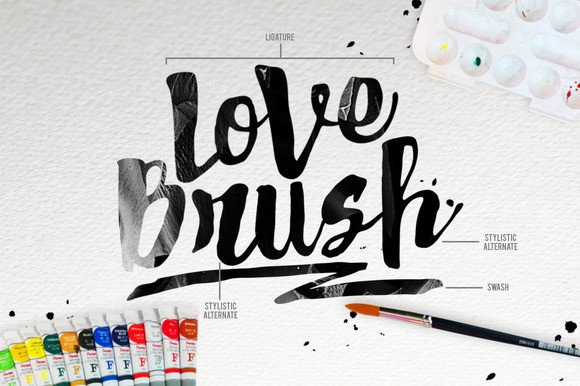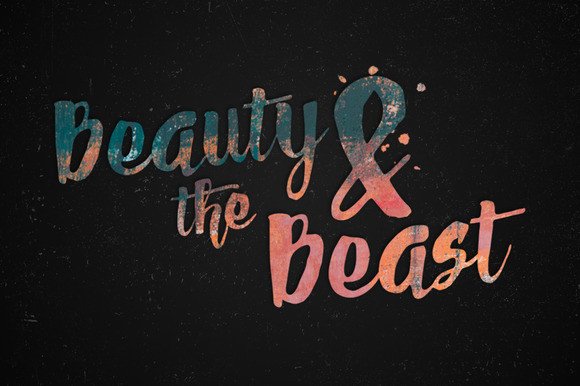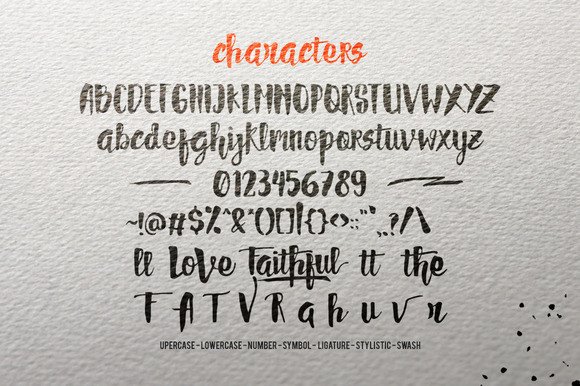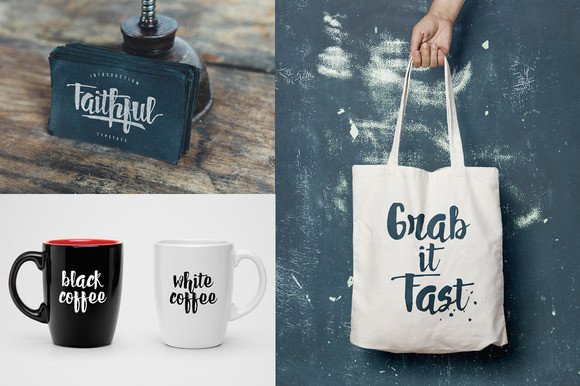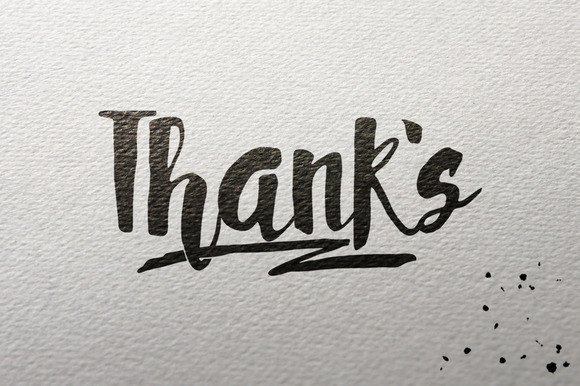
Introducing Faithful Font: The Reliable Brush Script for Your Creative Projects
Are you tired of using the same old fonts for your designs and projects? Look no further than Faithful Font, a stunning brush script font that is both adaptable and persuasive. With its unique charm and versatility, Faithful Font is the perfect addition to your typography collection.
What is Faithful Font?
Faithful Font is a brush script font that you can always rely on. As its name suggests, this gorgeous font is designed to be faithful to your creative vision, delivering high-quality text that’s both elegant and eye-catching. Whether you’re working on a logo, a poster, or a digital project, Faithful Font is the perfect choice.
Key Features of Faithful Font
- Adaptable: Faithful Font is designed to work in a large range of designs and creative projects. Whether you’re creating a bold and dramatic look or a soft and subtle one, Faithful Font adapts seamlessly to your needs.
- Persuasive: With its unique charm and character, Faithful Font is persuasive and engaging. It adds a touch of personality to your text, making it more relatable and memorable.
- High-quality: Faithful Font is crafted with precision and attention to detail, ensuring that your text looks crisp and clear in any context.
- Elegant: Faithful Font has an elegant, cursive feel that’s perfect for creating sophisticated and refined designs.
Why Choose Faithful Font?
There are many fonts to choose from, but Faithful Font stands out from the crowd. Here are just a few reasons why:
- Versatility: Faithful Font works well in a wide range of contexts, from headings and titles to body text and captions.
- Uniqueness: Faithful Font has a distinctive character that sets it apart from more generic fonts.
- Easy to read: Despite its elegant, cursive feel, Faithful Font is easy to read and understand, making it perfect for use in both digital and print contexts.
How to Use Faithful Font in Your Designs
Faithful Font is incredibly versatile, and can be used in a wide range of designs and creative projects. Here are just a few ideas to get you started:
- Logos and branding: Use Faithful Font to create a unique and memorable logo that reflects your brand’s personality.
- Posters and flyers: Add a touch of elegance and sophistication to your posters and flyers with Faithful Font.
- Digital projects: Use Faithful Font in your digital projects, such as website headers, social media graphics, and email newsletters.
- Crafting and DIY: Faithful Font is perfect for crafters and DIY enthusiasts who want to add a personal touch to their projects.
Tips and Tricks for Getting the Most Out of Faithful Font
Here are a few tips and tricks to help you get the most out of Faithful Font:
- Experiment with different sizes: Faithful Font looks great in a wide range of sizes, from large headings to smaller body text.
- Play with color: Faithful Font works well in a variety of colors, from bold and bright to soft and pastel.
- Combine with other fonts: Faithful Font pairs well with a wide range of other fonts, so don’t be afraid to experiment with different combinations.